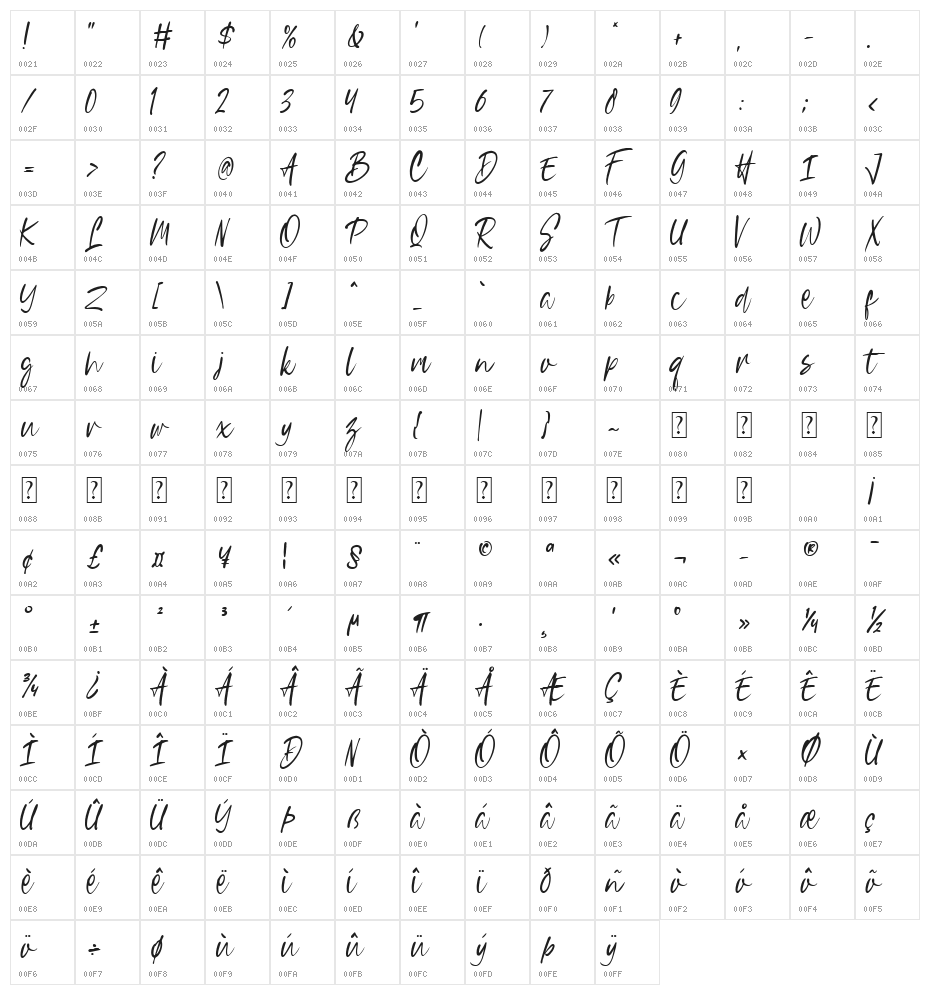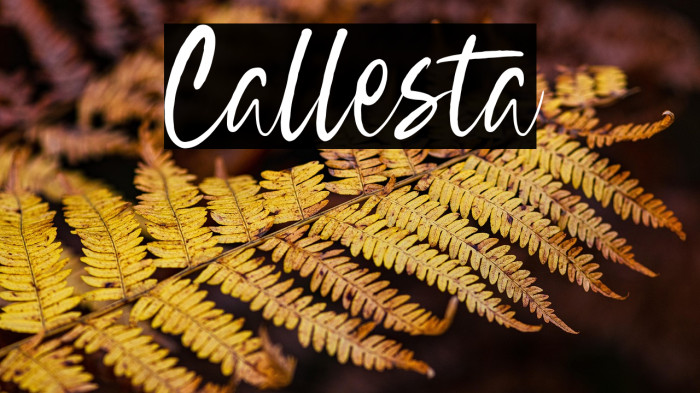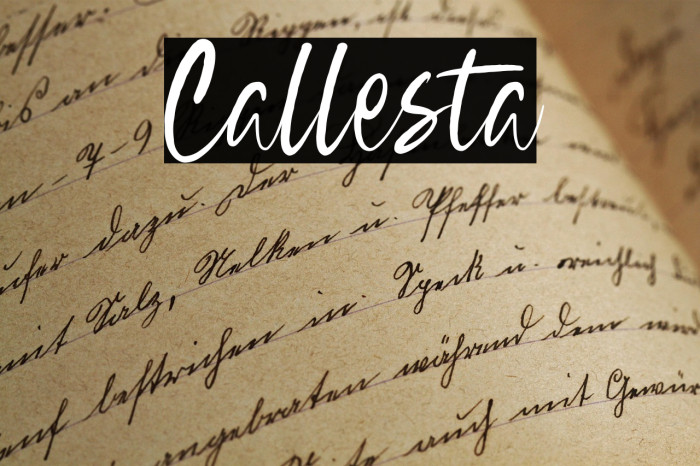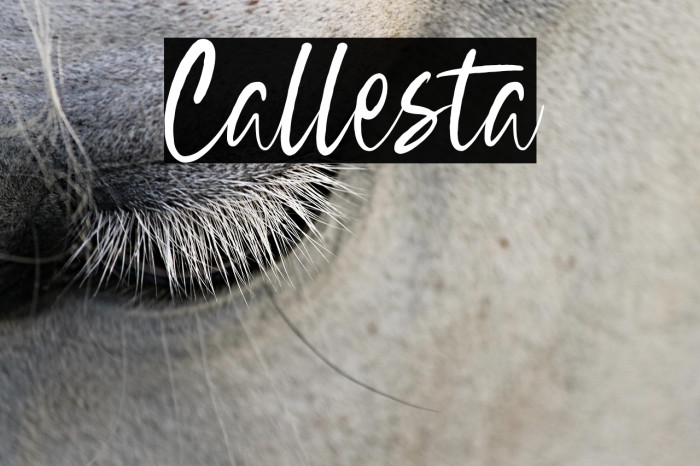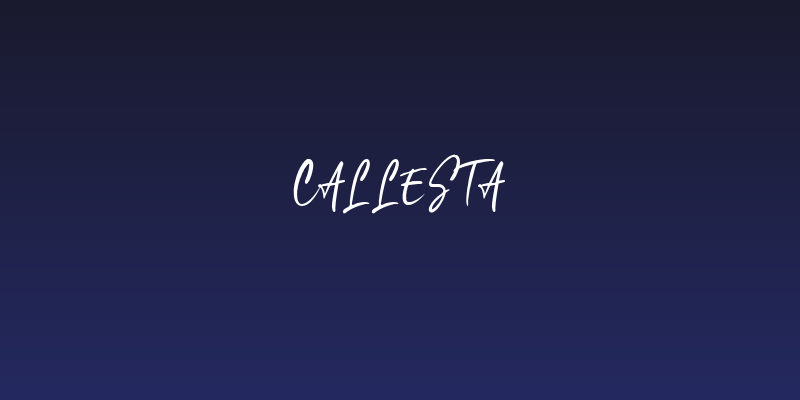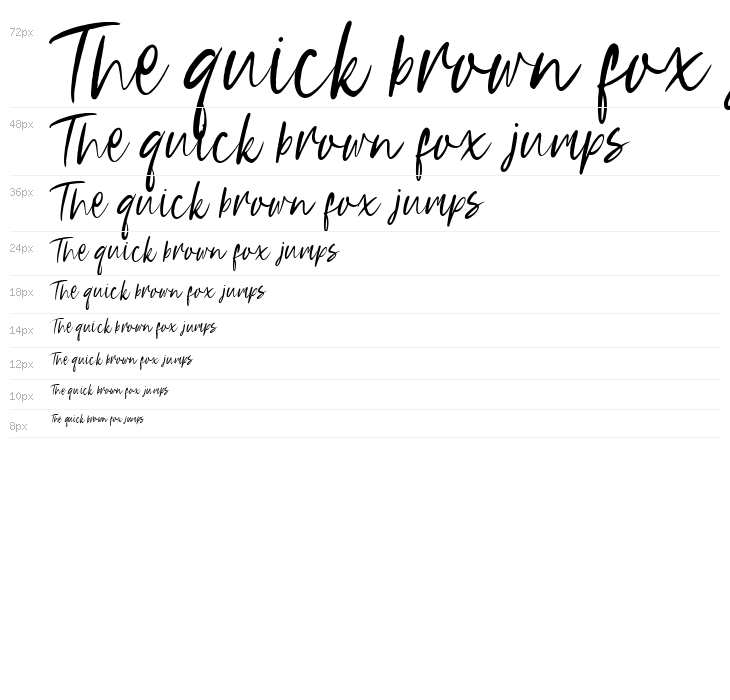
Callesta Font
Callesta Description
This font exudes a lively and expressive handwritten style, characterized by its fluid and dynamic strokes. The letters are slightly slanted, giving a sense of motion and energy. The uppercase letters are bold and prominent, while the lowercase letters maintain a consistent flow, adding to the overall cohesiveness. The numbers and special characters are crafted with the same attention to detail, ensuring versatility across various uses. The font's playful yet elegant appearance makes it suitable for creative projects that require a personal touch.
| Proposed Projects | Ideal for wedding invitations, greeting cards, branding, and social media graphics. |